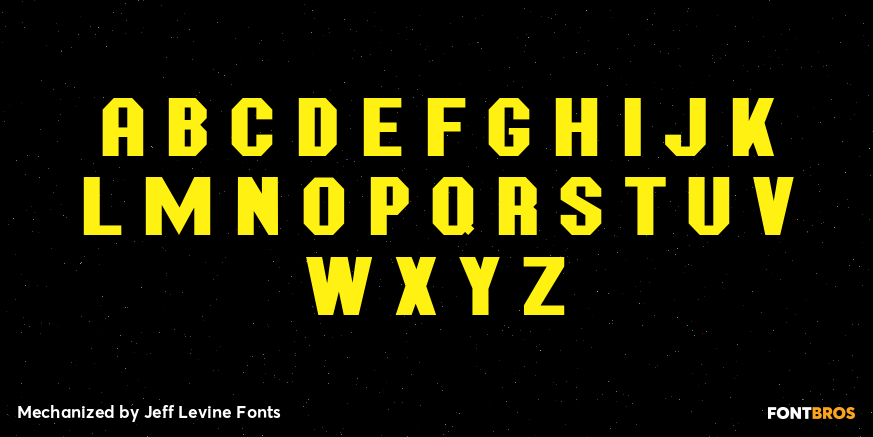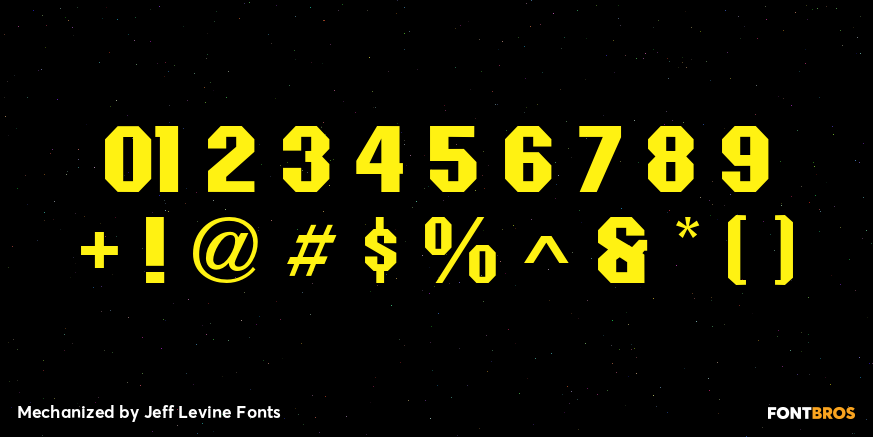
Mechanized
Mechanized JNL is a solid interpretation of Jeff Levine's stencil font Trencher JNL. Both fonts were based on a photos of hand-cut stencils found on a 1940s trenching machine in the collection of the Marine Corps Mechanized Museum at Camp Pendleton, California.